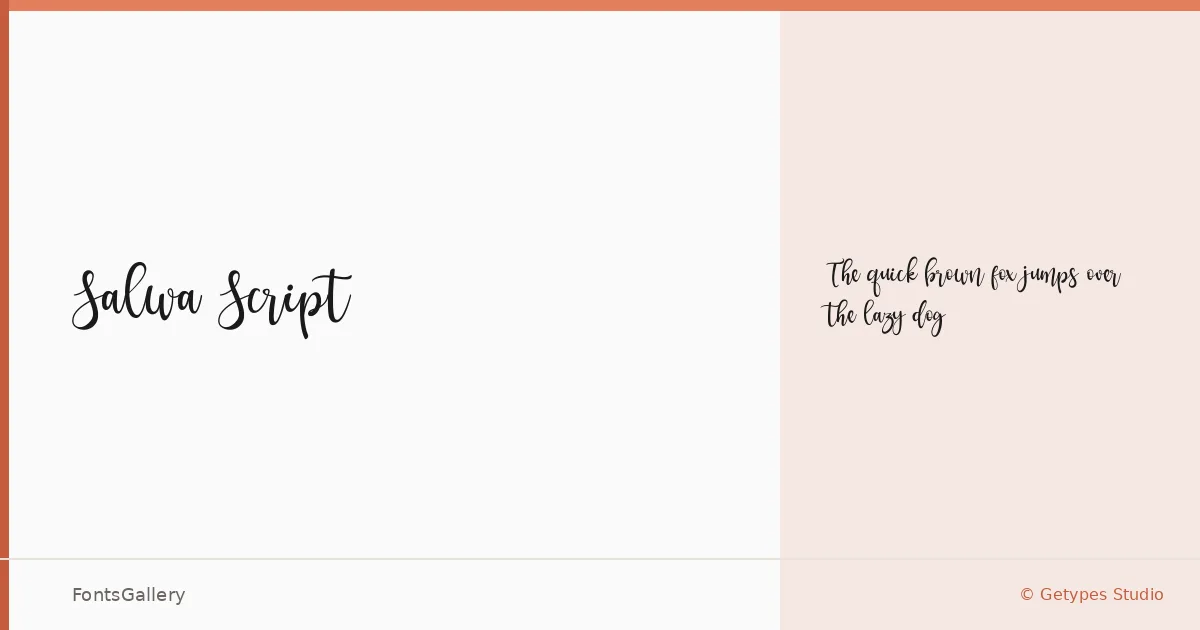
About Salwa Script Font
There is a particular ease to this script — the kind of flowing, connected hand that feels unhurried without losing its composure. Designed by Rizaldi Wandani for Getypes Studio, it carries a classic, romantic sensibility that sits comfortably between formal calligraphy and something more personal and warm. The letterforms lean gently, with swashes that suggest pen on paper rather than mechanical construction.
Salwa Script is a single-weight script — Regular — delivered as a TTF file with Latin language coverage. Its mood is elegant and whimsical at once, which is a balance that not every script manages: the strokes are refined enough for formal applications but carry enough character to feel celebratory and alive. On a wedding invitation or a greeting card, it reads as handcrafted rather than templated.
The face earns its place in branding, invitation card design, wedding stationery, and social media graphics where a romantic or classic tone is the brief. For pairing, its fluid curves contrast well against the geometry of Helvetica or the editorial presence of Canela, and it also works alongside Etna, ABC Arizona, and AQUA when a headline hierarchy needs clear contrast between script and roman.